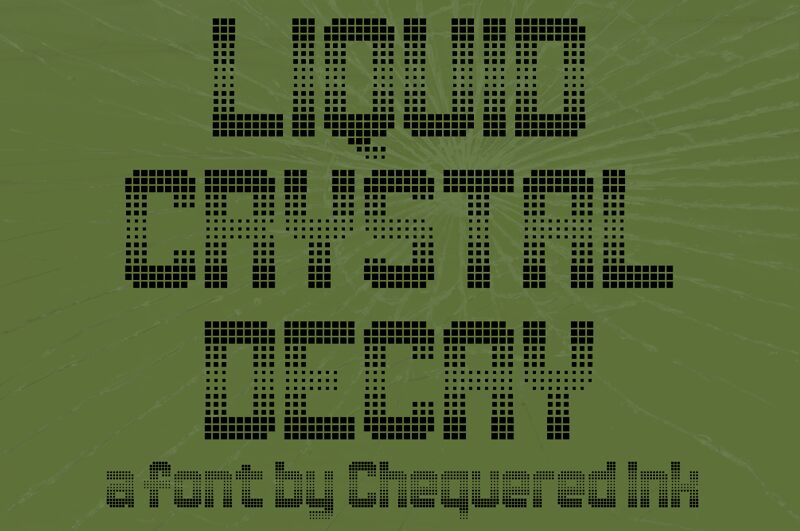
Liquid Crystal Decay font designed by Chequered Ink is a free display font inspired by electronics and digital screens. The design's magical charm stems from the line combination which showcases gaps, diagonal cuts, and sharp corners that jump from one point to the next. This is an unusual yet highly captivating style both unique and innovative in its own way.
The best use cases for Liquid Crystal Decay are video games, movie posters, album covers, book covers, product labels & packagings, food labels & packaging designs especially for electronic devices and gadgets. Other suitable uses include music event invites such as flyers or posters along with branding projects such as logos.